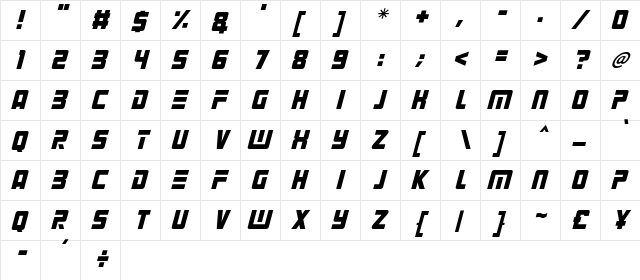
Alien Android Italic
Design Context for Alien Android Typeface
Alien Android offers clean, dependable letterforms without strong stylistic allegiance, making it a practical choice for designers who need flexibility. Its italic angle brings a sense of urgency and motion to the letterforms.
Pro Tip: Try Alien Android for annotation and caption copy alongside an upright companion — the contrast in angle creates a dynamic but ordered typographic system.